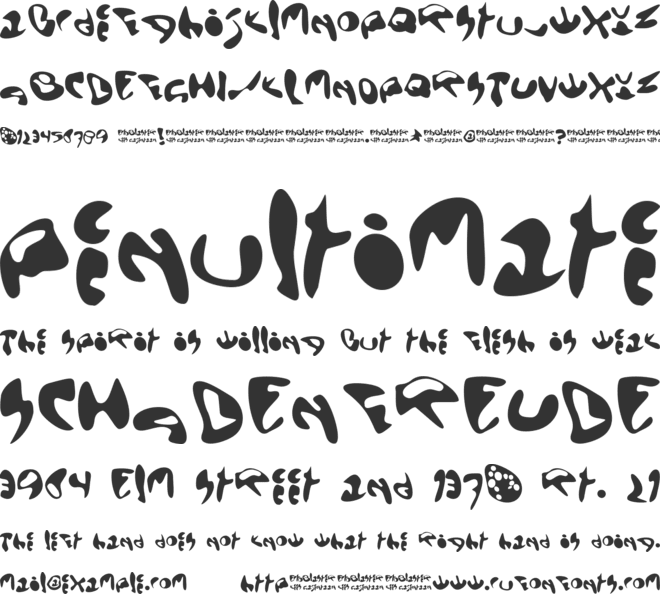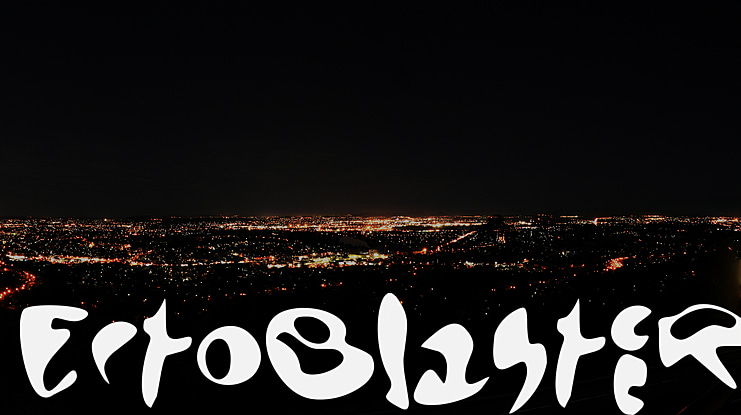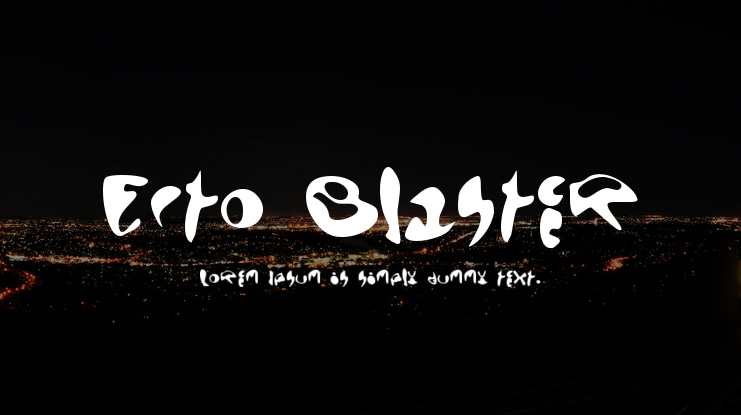
Ecto Blaster Font
Originally, these were just shapes i doodled. Some came out resembling letters and numbers, and some didn't. The dinosaurs died off, but the mammals survived. Godlike, i gave some doodles the power to communicate, given that they worked together. On the seventh day, i decided that they'd evolved enough, and let them run free on the net.
The rest, as they say, is history.